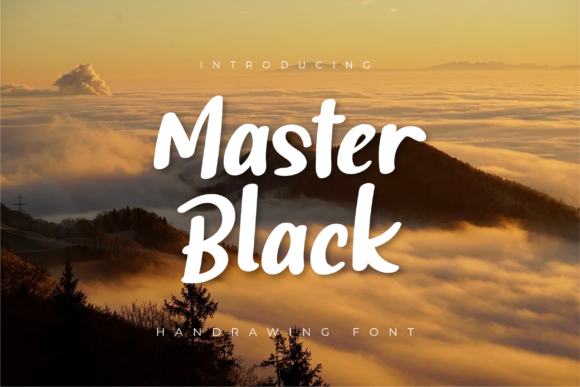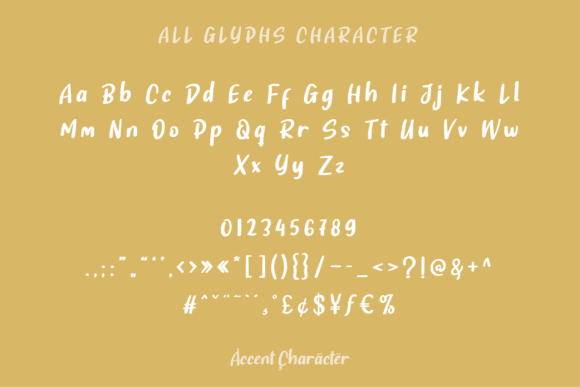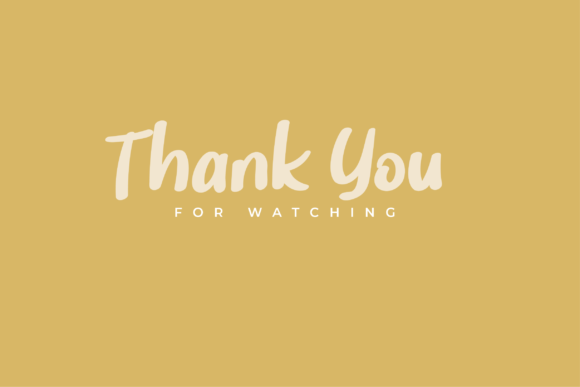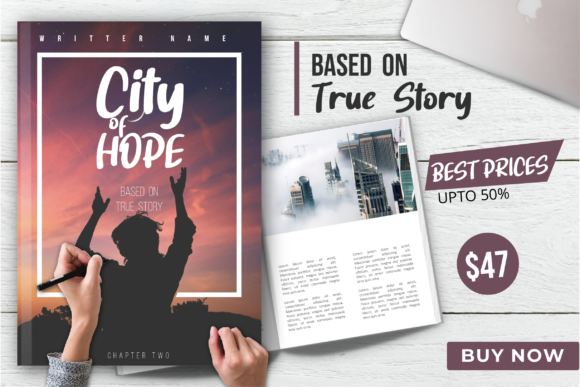
About Master Black Font
Master Black: Embrace the Exquisite Charm of an Artful Handwritten Font
Introducing Master Black, a font that exudes exquisite charm in every stroke. With its masterful design, this handwritten font is destined to become a true favorite for designers and creatives alike. Its incredible versatility makes it a perfect choice for a wide range of designs, allowing you to create spectacular masterpieces that captivate the senses.
The allure of Master Black lies in its artful elegance. Each letter is crafted with meticulous attention to detail, leaving a trail of sophistication that is simply enchanting. Its unique style sets it apart, making it a font that stands out and elevates your designs to new heights.
Designing with Master Black is a delightful journey. Whether you’re creating intricate wedding invitations, designing impactful logos, or crafting artistic prints, this font infuses your projects with an unmatched sense of refinement and beauty.
Expressing sentiments becomes an art form with Master Black. Each word is like a work of calligraphic art, conveying emotions with a touch of grace and flair. From heartfelt love letters to empowering quotes, this font transforms your words into visual poetry.
Gorgeous designs come to life with Master Black’s versatile style. Whether you’re creating eye-catching social media posts, designing elegant stationery, or crafting captivating posters, this font adds a touch of sophistication that draws admiration.
For businesses seeking a logo that leaves a lasting impression, Master Black is the answer. Its unique artistry and timeless appeal make it a powerful tool to communicate your brand’s identity with creativity and elegance.
And when it comes to unleashing your creativity, Master Black is your ultimate ally. Its versatility allows it to complement various themes and aesthetics, giving you the freedom to explore and experiment with your designs.
In conclusion, Master Black is more than just a font; it’s an exquisite work of art. Fall in love with its artful elegance, and let it inspire your most cherished designs. Embrace the versatility it offers, and watch as it transforms your ideas into spectacular masterpieces. Whether you’re celebrating love, leaving a lasting brand impression, or expressing your creativity, Master Black will be your trusted companion, adding a touch of magic to every project. Let this font be the key to unlocking the full potential of your creativity, and watch as your designs come alive with the enchanting charm of Master Black.